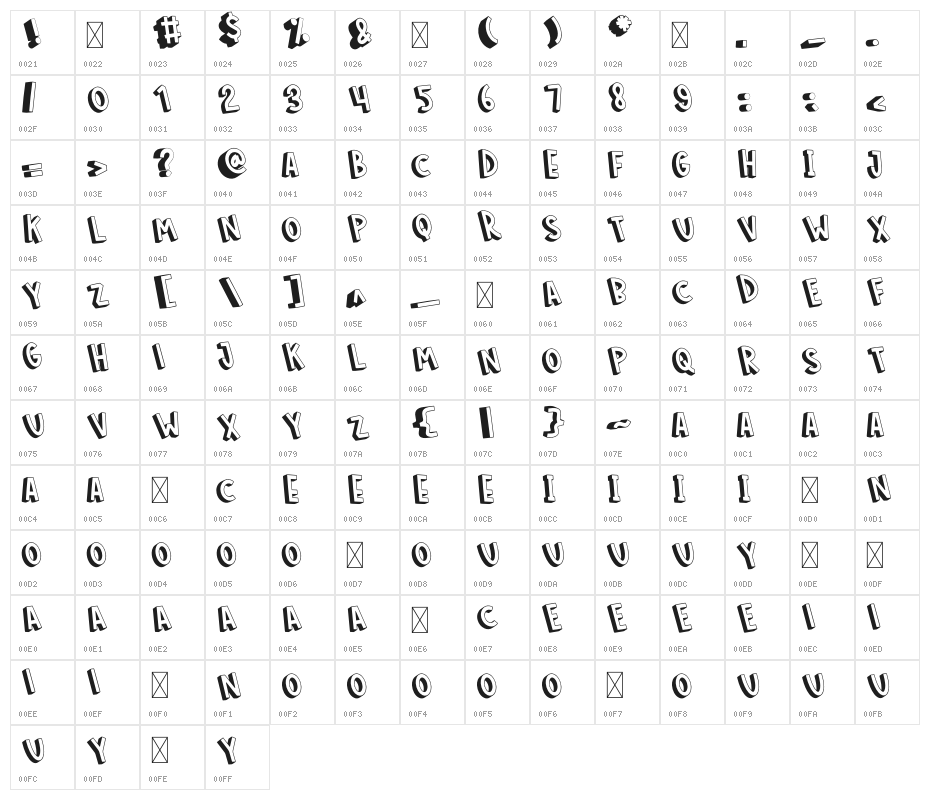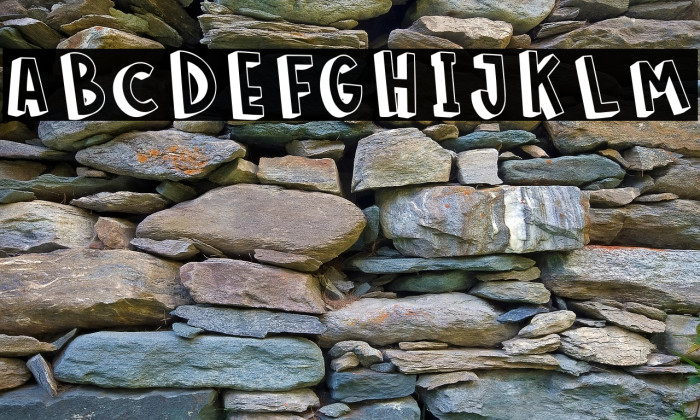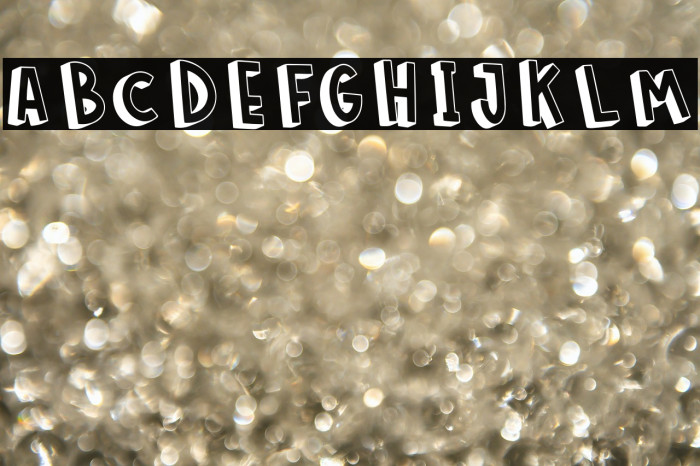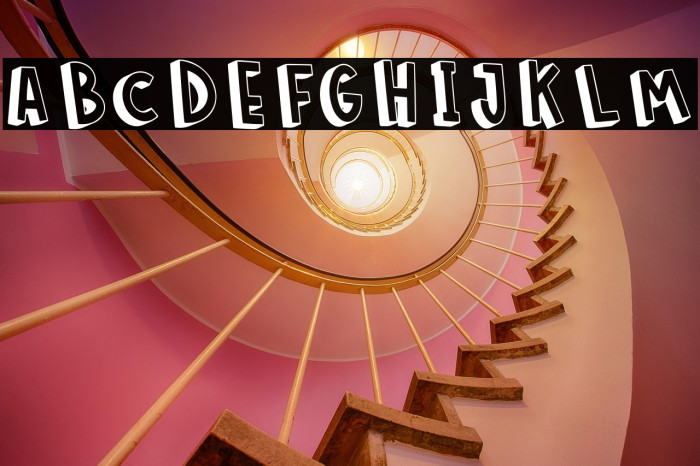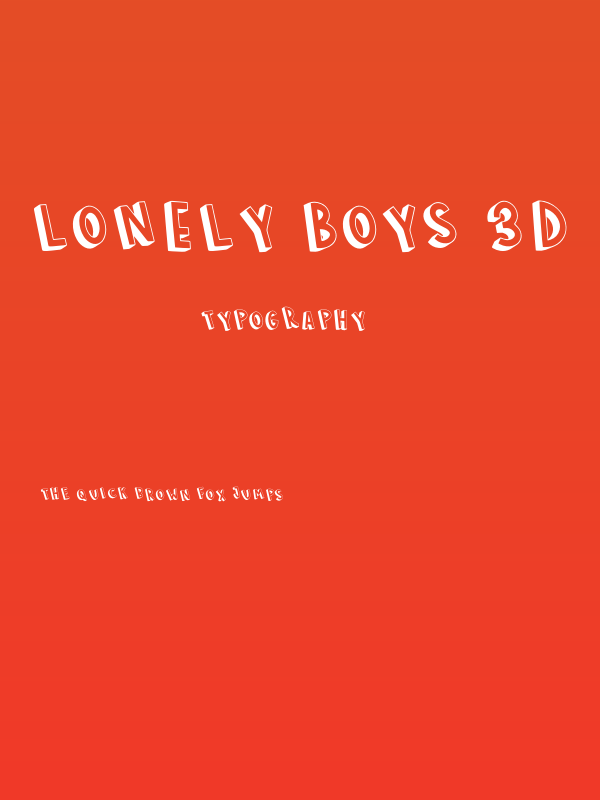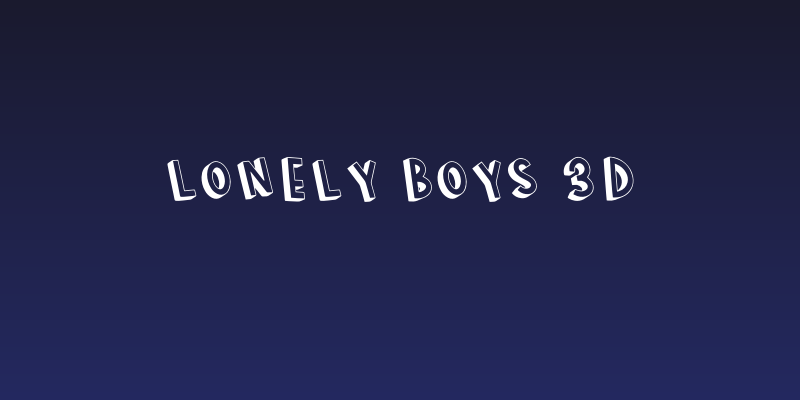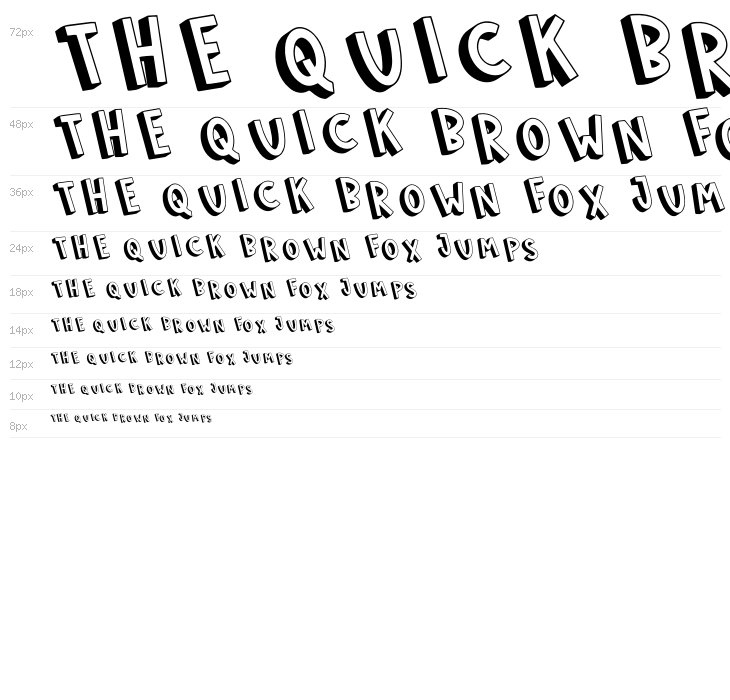
LONELY BOYS 3D Font
LONELY BOYS 3D Description
This font exhibits a playful and bold 3D style, characterized by its thick, shadowed letters that create a sense of depth and dimension. The uppercase and lowercase letters maintain a consistent width, with a slightly rounded appearance that adds to its approachable and friendly aesthetic. The numbers and special characters follow the same design principles, ensuring uniformity across all elements. The font's exaggerated shadows and bold lines make it stand out, ideal for capturing attention in various design contexts.
| Overall Style | Playful, Modern |
| Use Case | Headlines, Posters, Branding |
| Proposed Projects | Perfect for children's book covers, playful branding, posters, and any project requiring a fun and eye-catching typeface. |